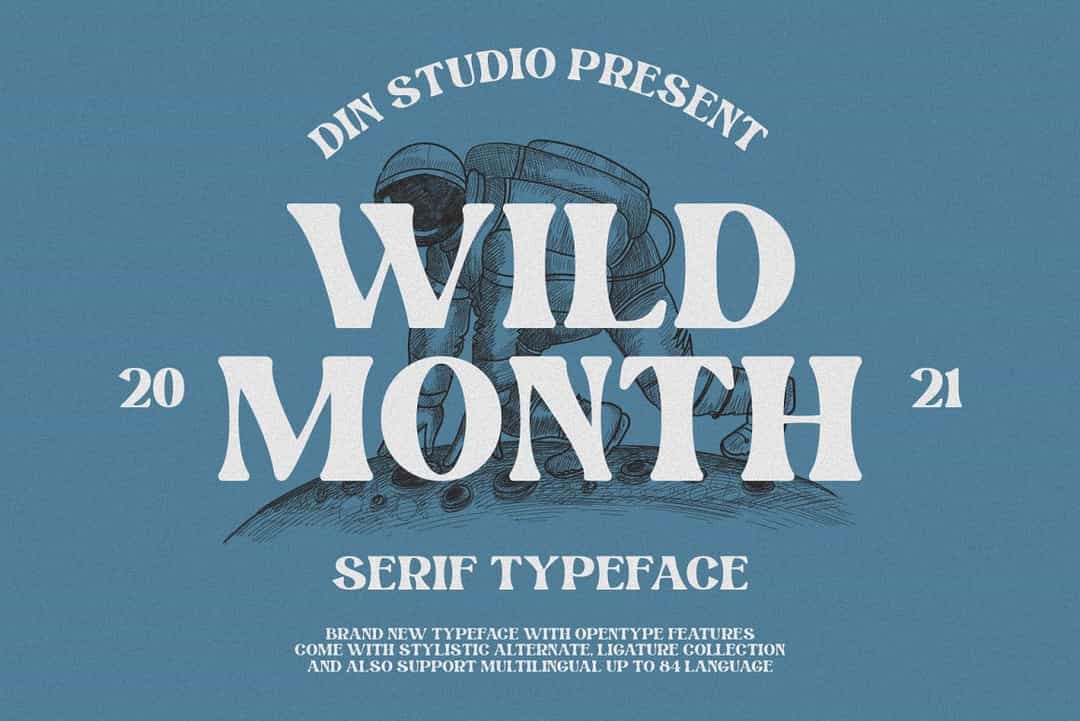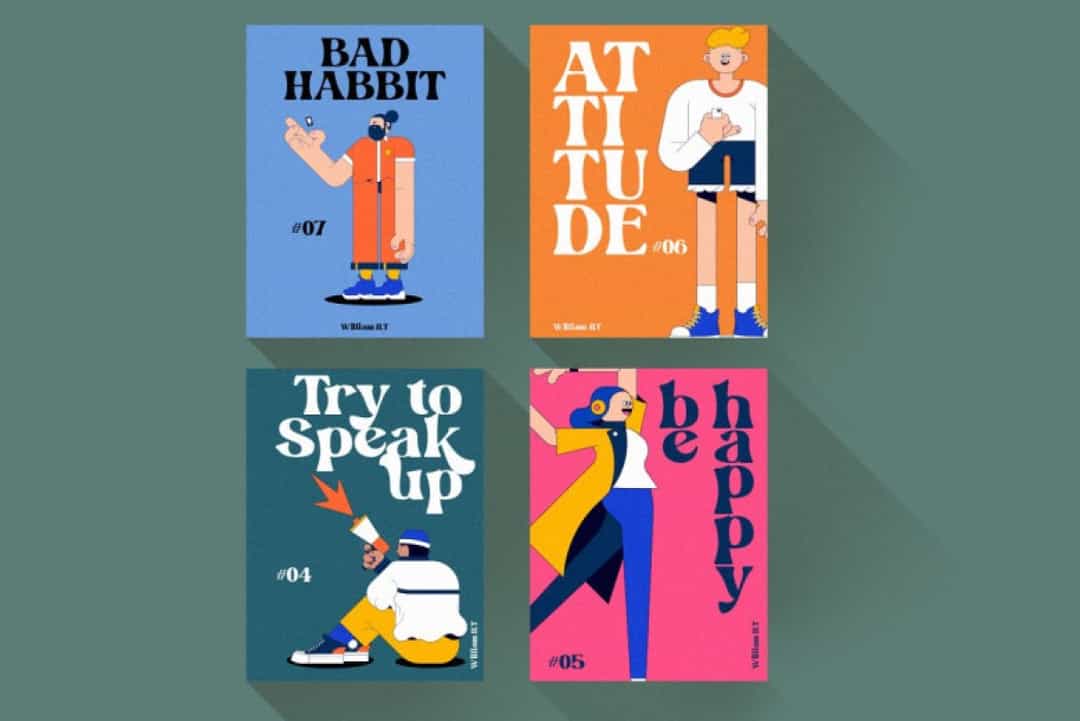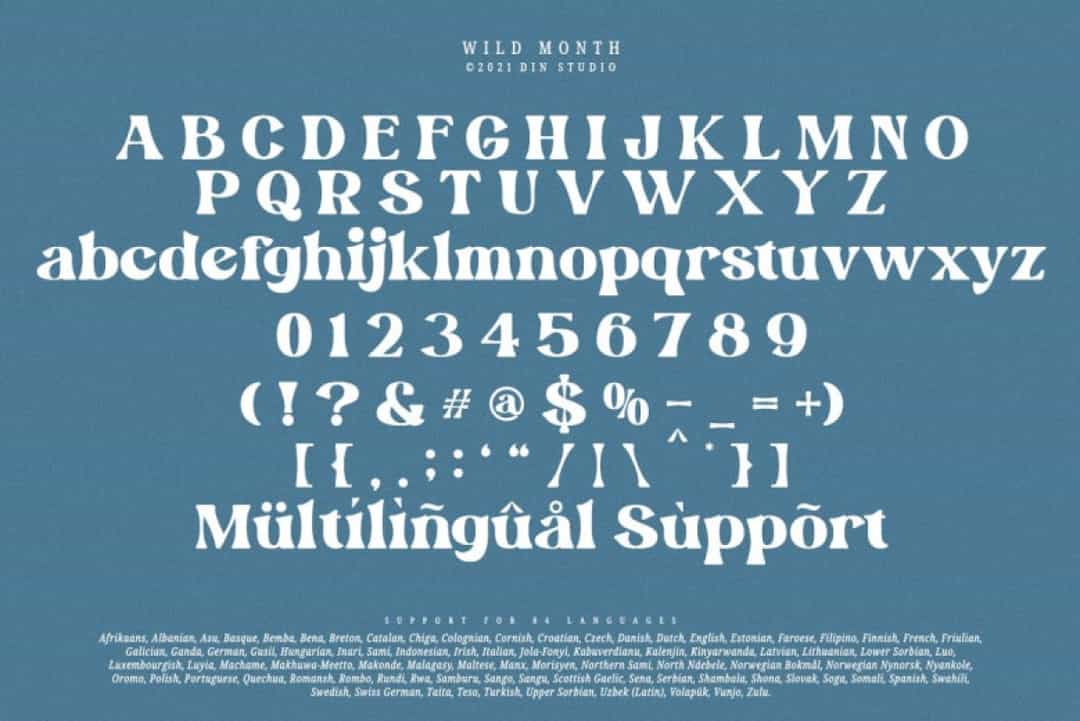
Wild Month is a serif font available both lowercase and uppercase that is an excellent way to add modernity and an artistic look to projects and promotions. Perfect for book covers, logo posters, T-shirt branding campaigns and advertising purposes as well as other needs, it provides you with everything needed in one package!